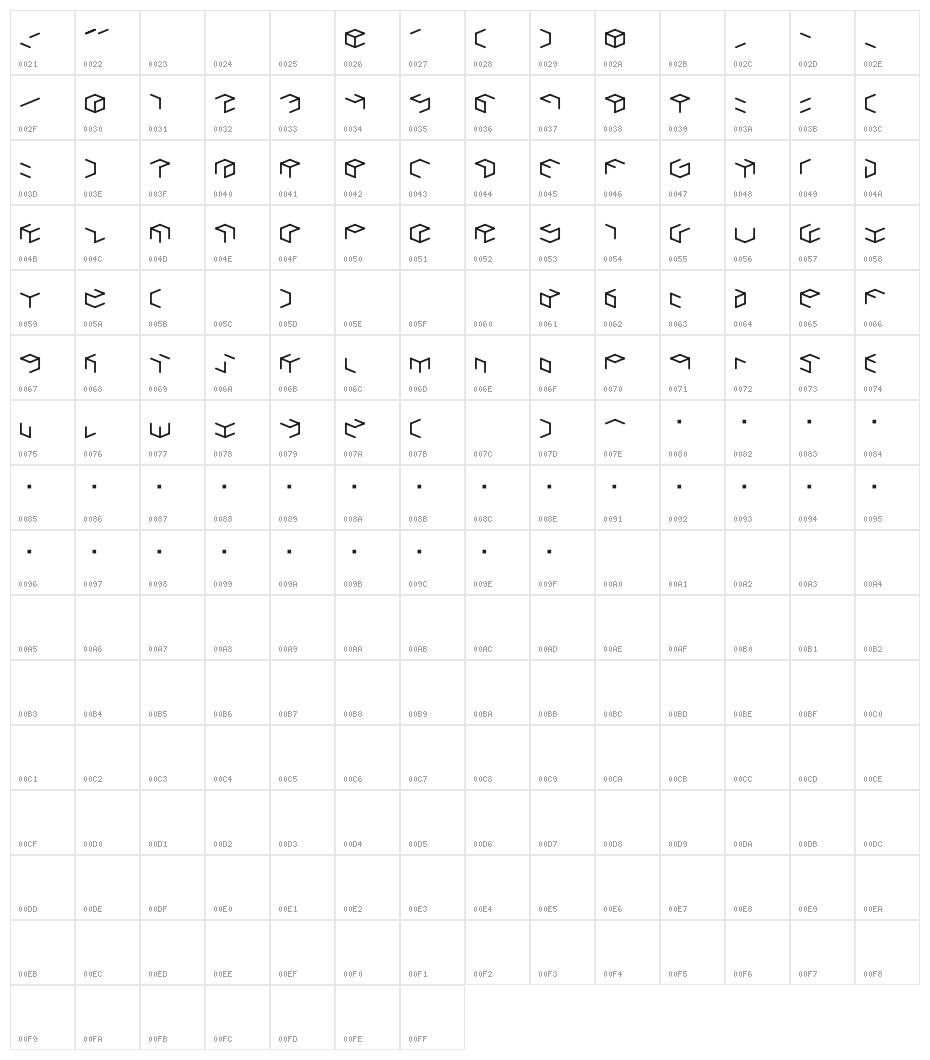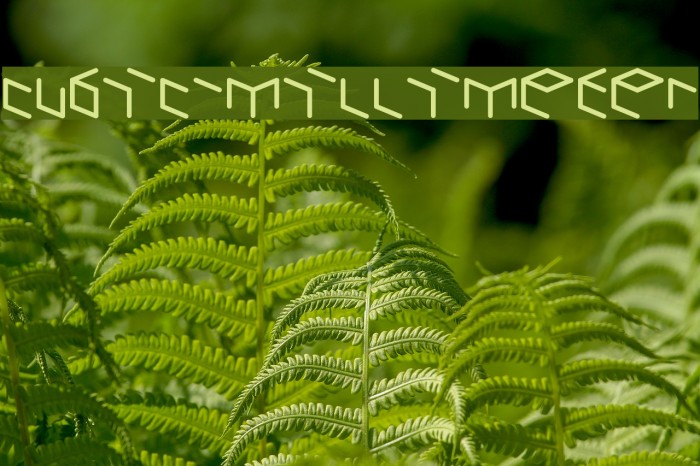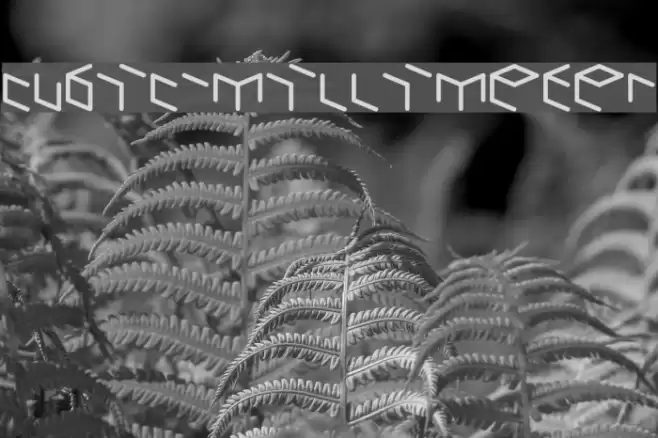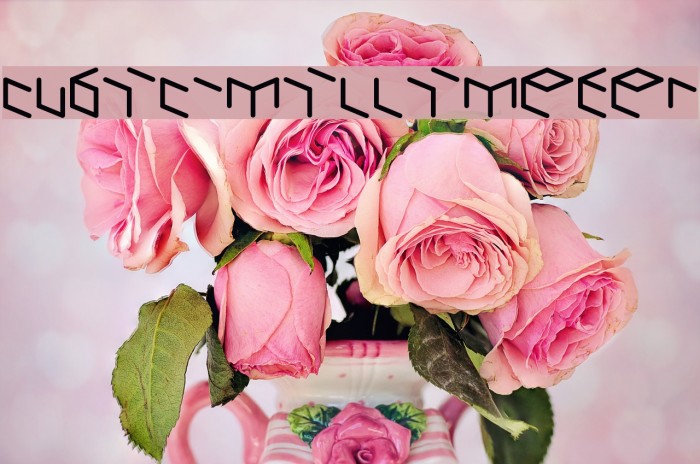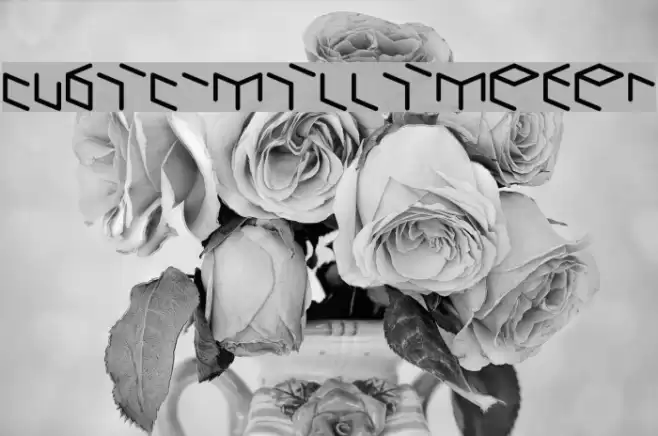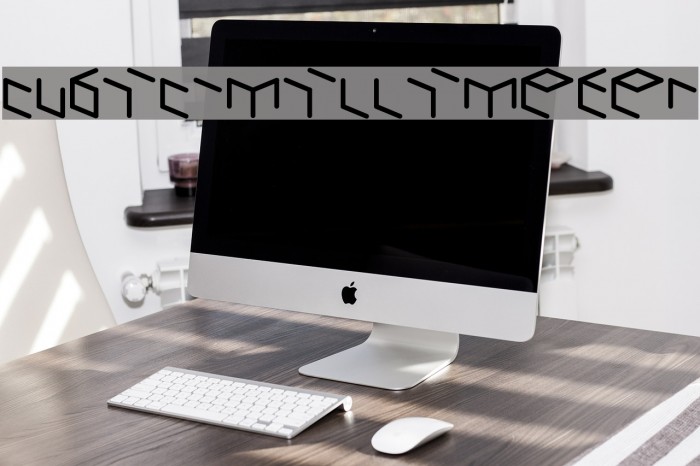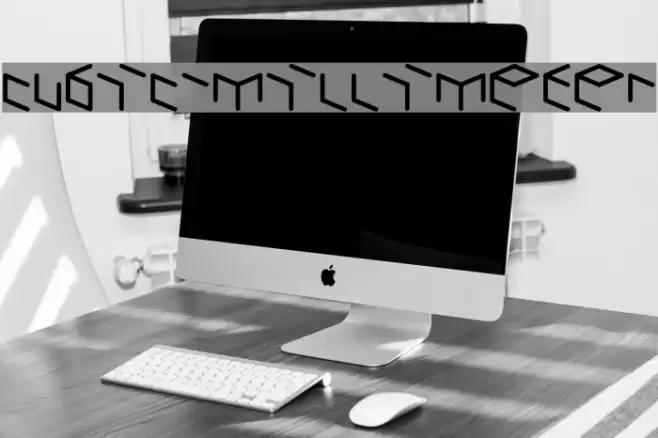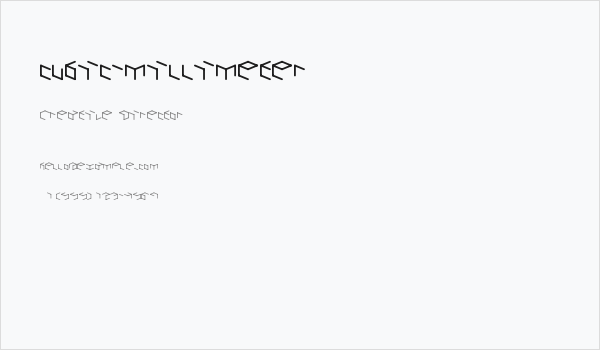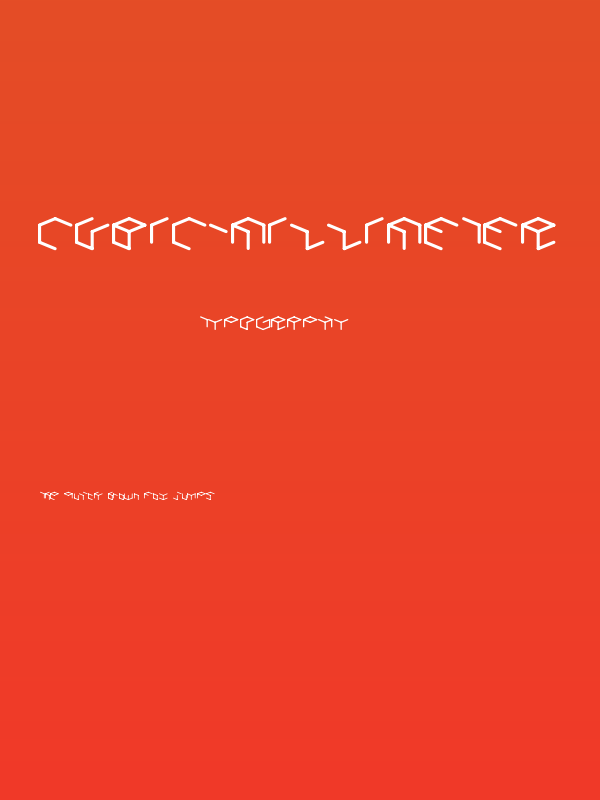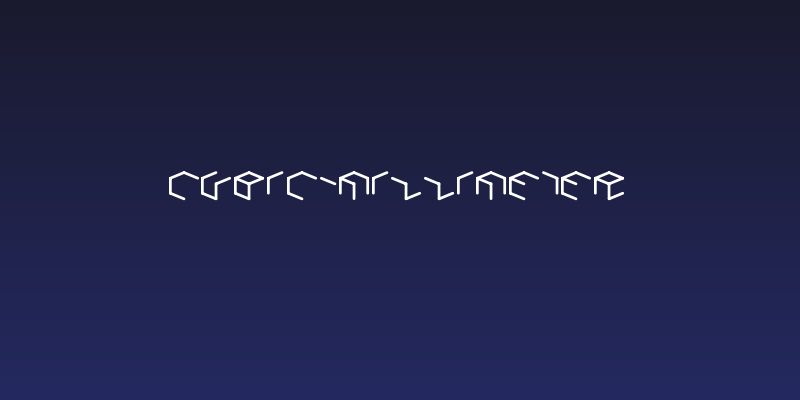
cubic-millimeter Font
cubic-millimeter Description
This font features a unique, geometric design that mimics a three-dimensional, cubic appearance. Each character is constructed with sharp angles and straight lines, creating an illusion of depth and perspective. The style is highly modern and abstract, making it stand out with its bold, architectural look. The uppercase and lowercase letters maintain a consistent design theme, while the numbers and special characters follow the same structural pattern. This font is ideal for projects that require a futuristic or tech-inspired aesthetic.
| Proposed Projects | Ideal for tech branding, futuristic posters, video game graphics, and architectural designs. |